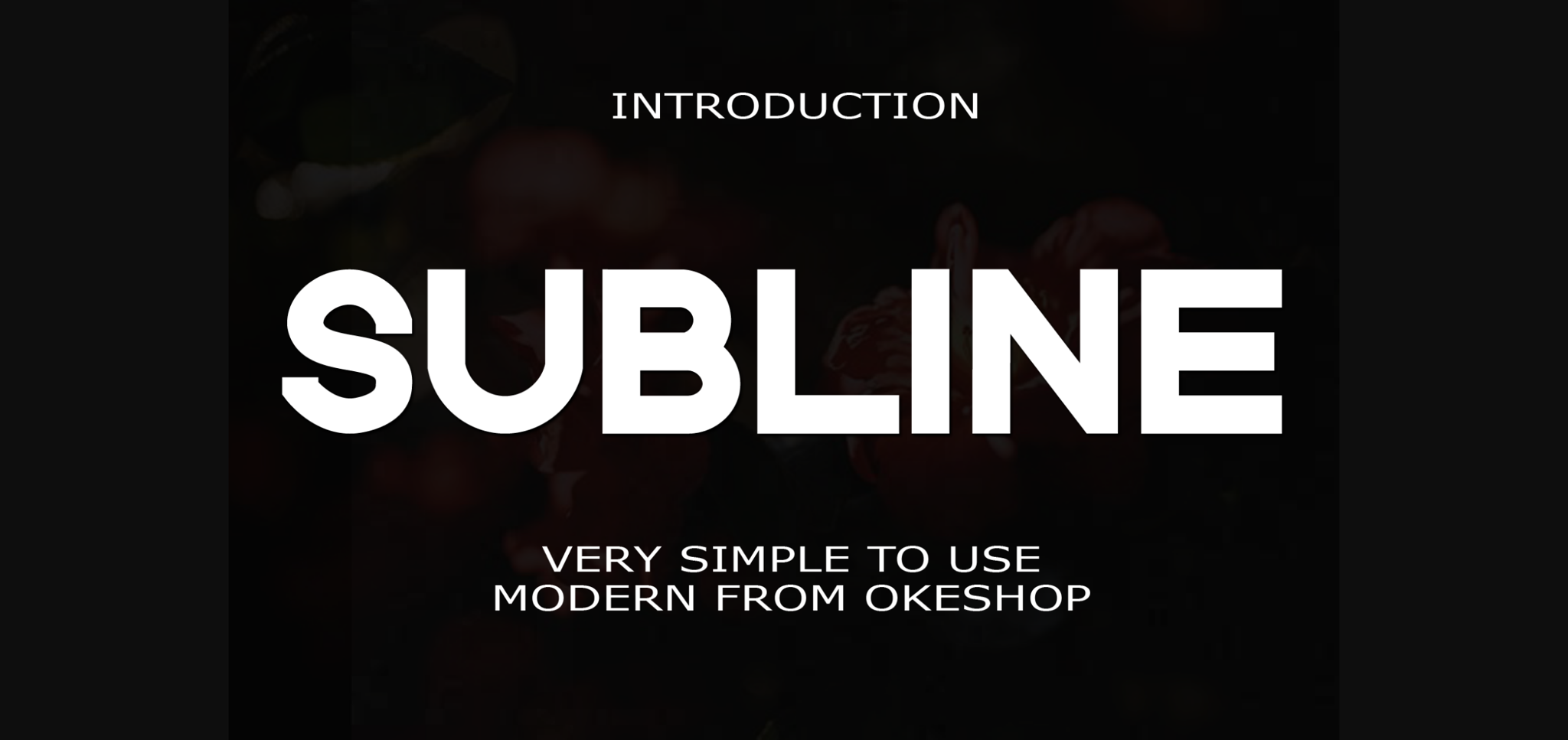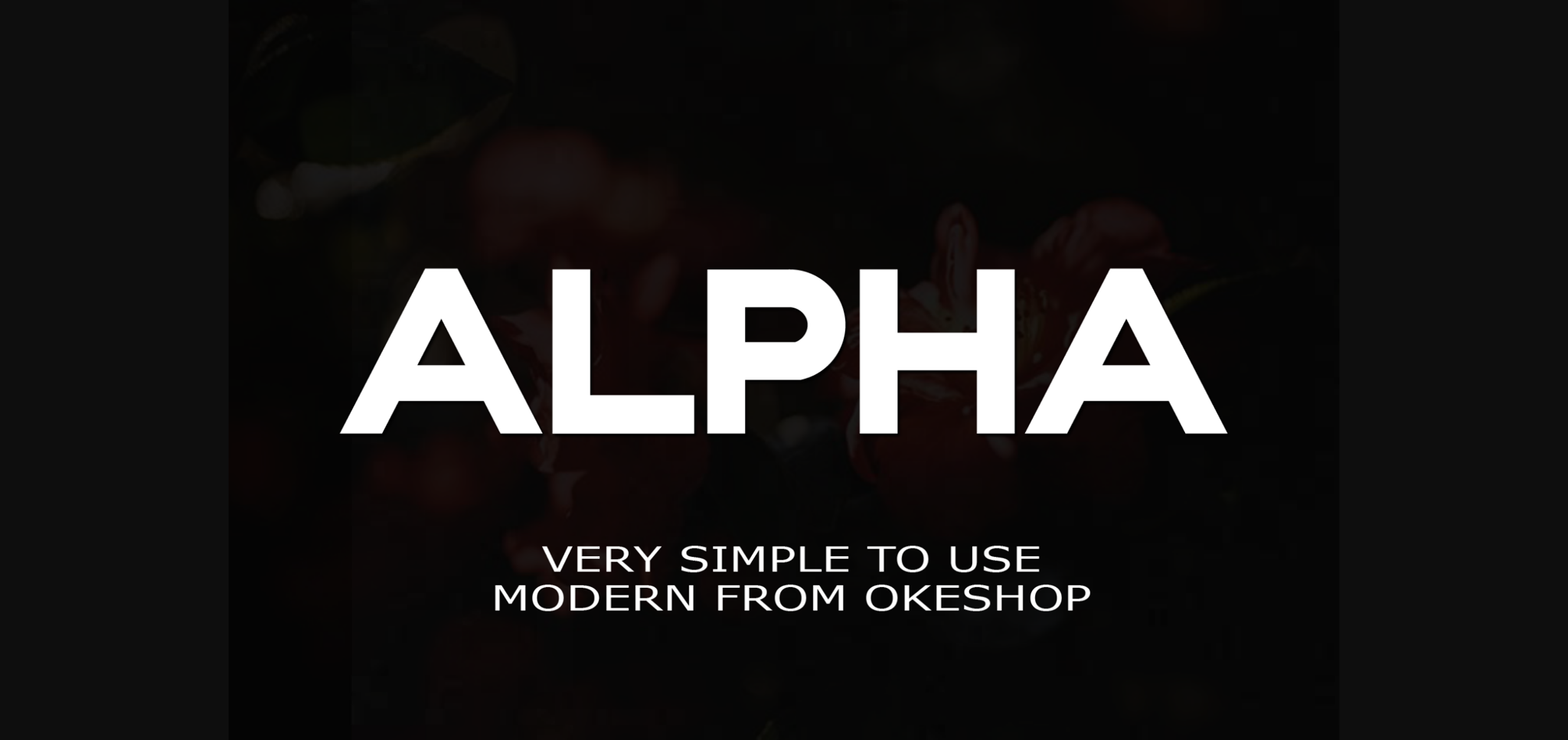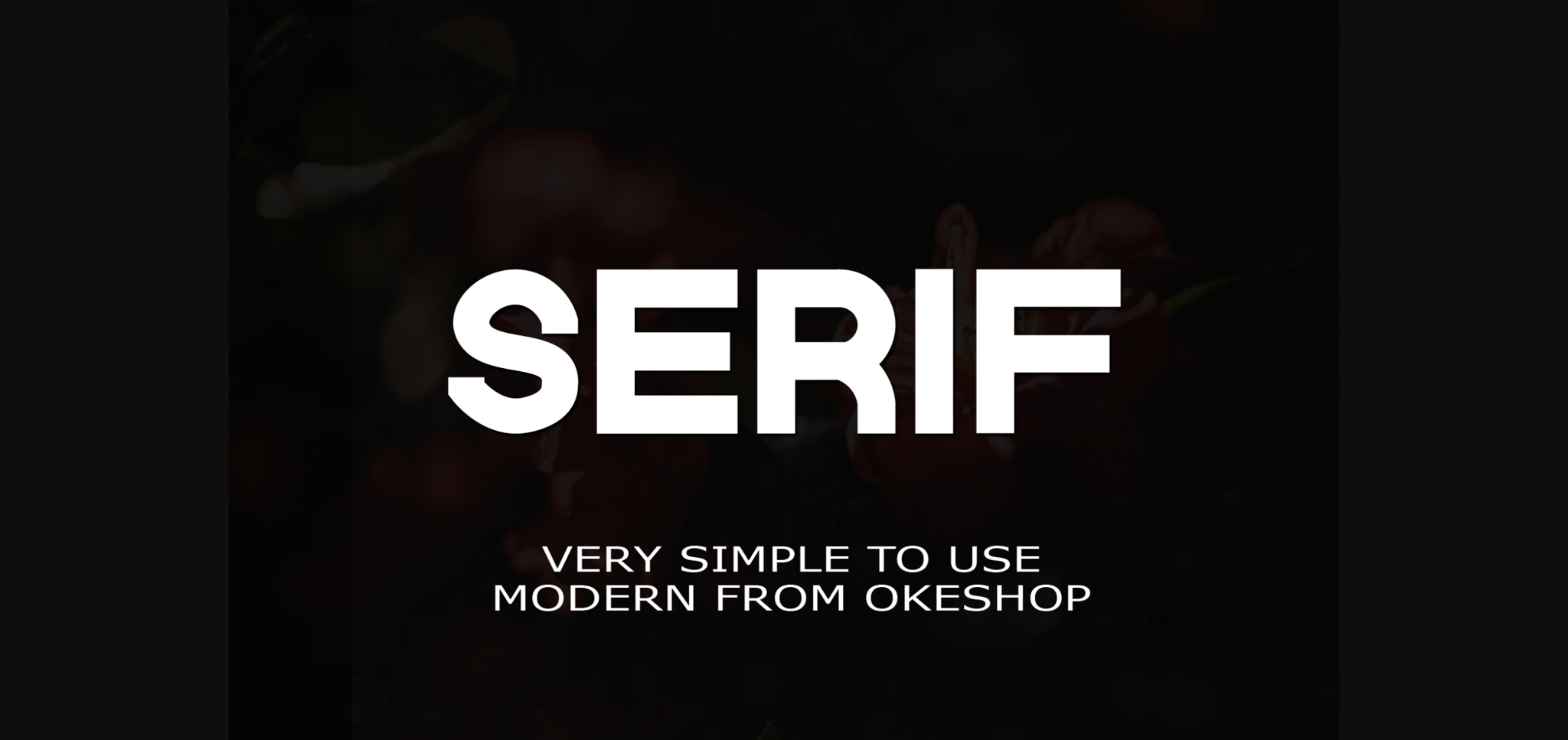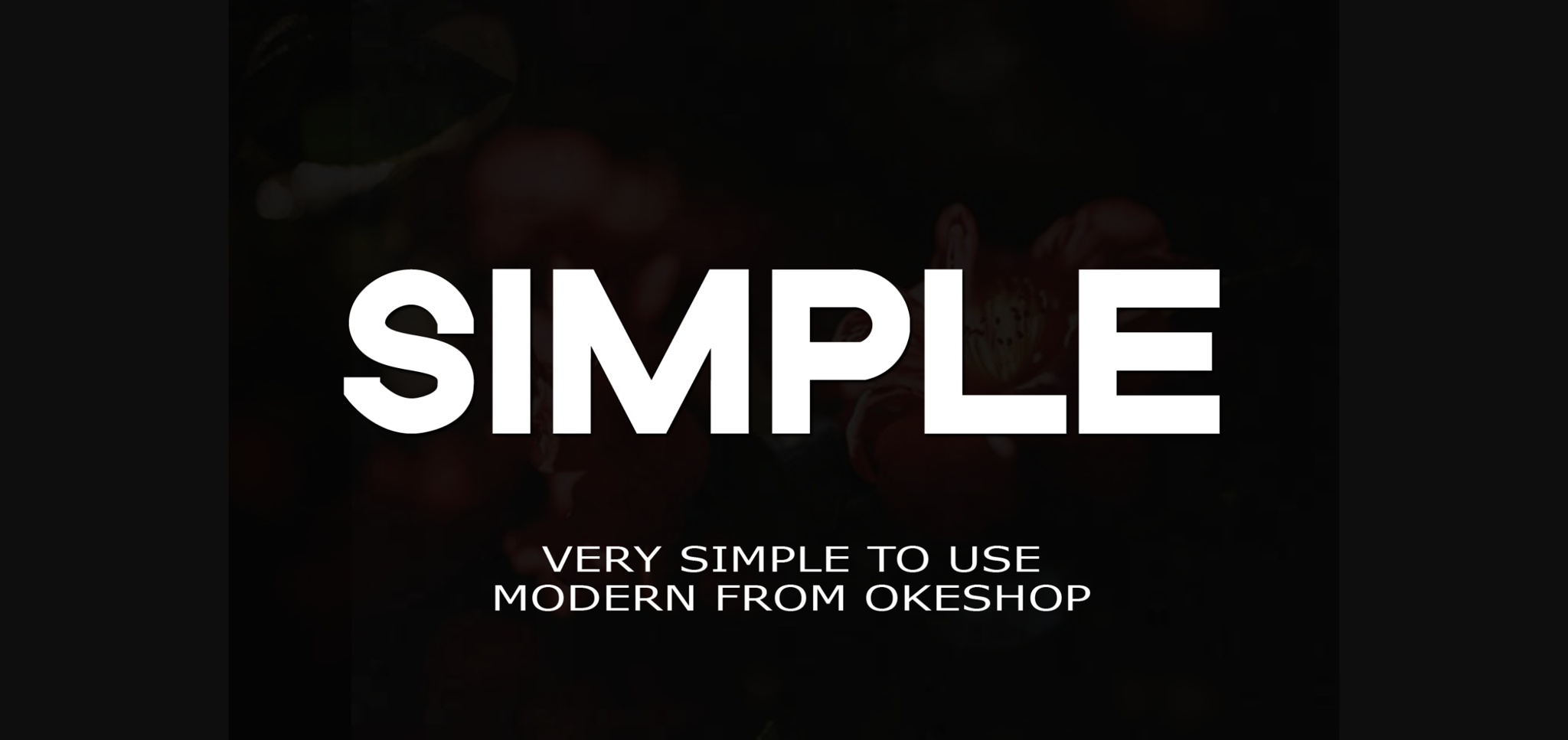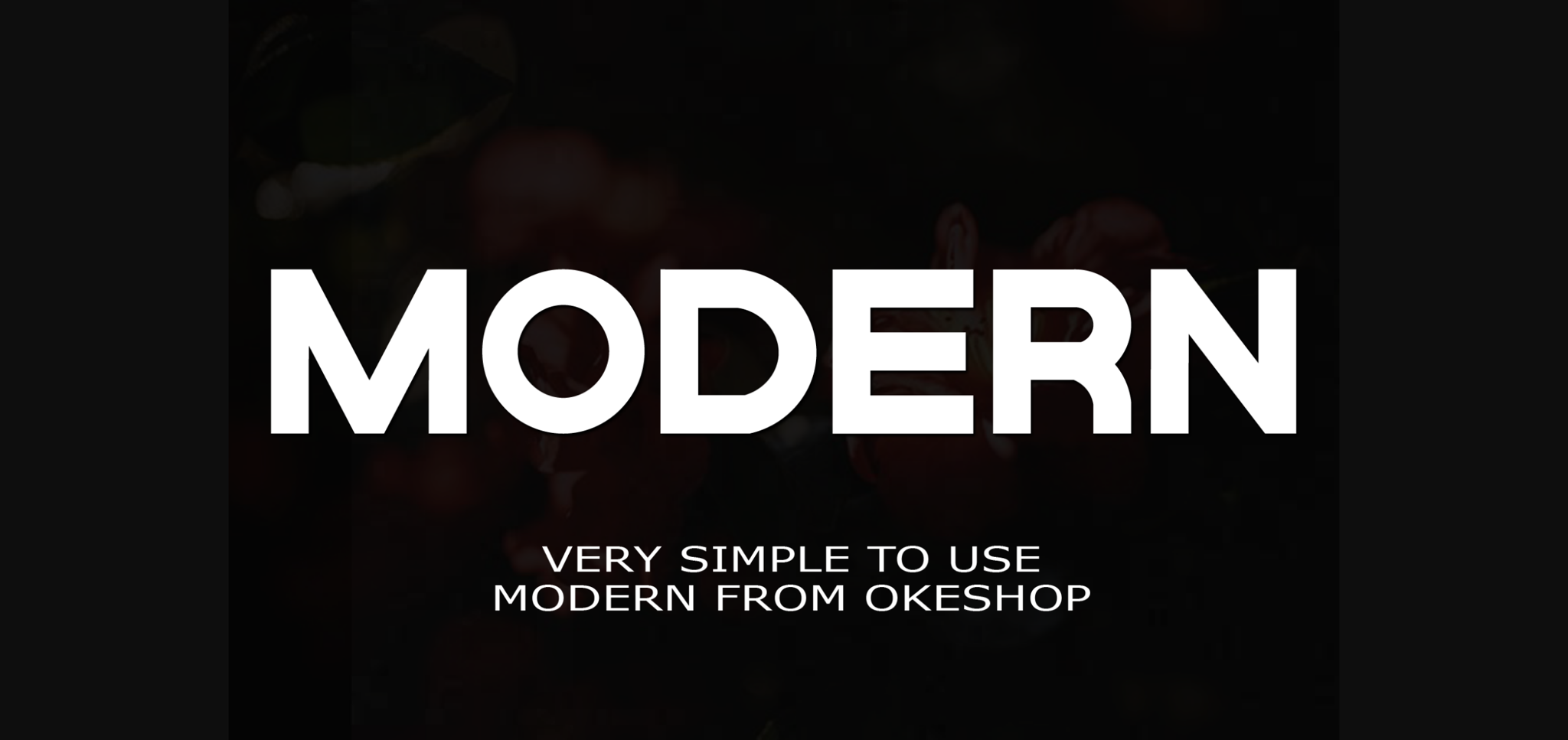
Subline is a ravishing sans serif font. This versatile script font has a wide spectrum of applications ranging from greeting cards to headlines and is guaranteed to add a romantic feel to your next project.